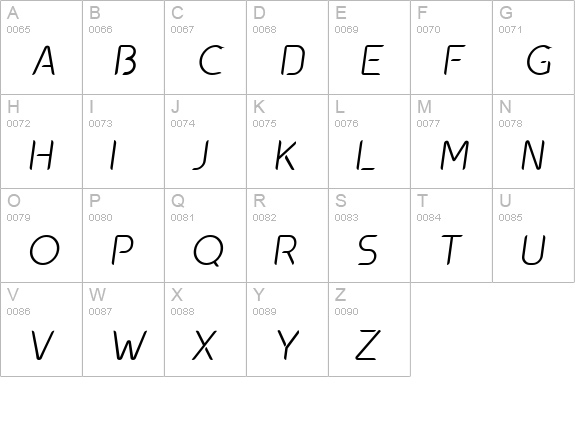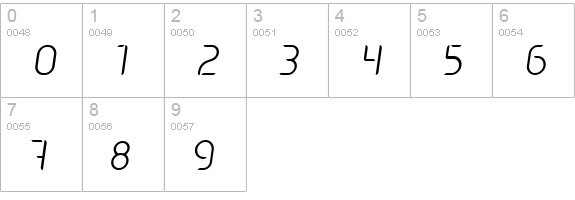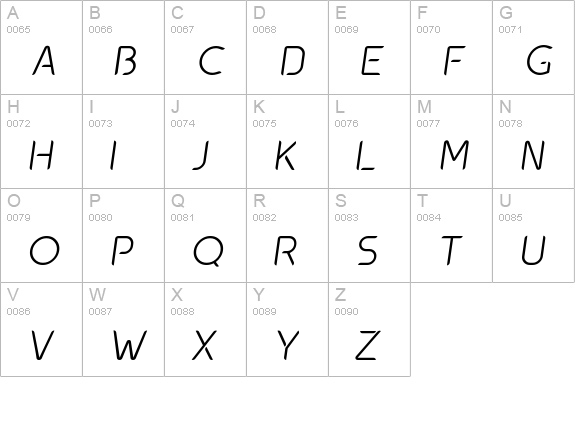
oxo-lightItalic Font Details
Introducing Oxo-LightItalic, a sleek and modern font designed to add a touch of elegance to your projects. This stylish typeface features delicate, flowing italics that exude sophistication and class. Ideal for use in branding, packaging, invitations, and more, Oxo-LightItalic is a versatile font that will elevate any design. The best part? Oxo-LightItalic is completely free to download at FontsMarket.com. Whether you're a graphic designer, a blogger, or a small business owner, this font is the perfect addition to your creative toolkit. Don't miss out on the opportunity to enhance your projects with the timeless beauty of Oxo-LightItalic. Download it today and start creating stunning designs that will leave a lasting impression.